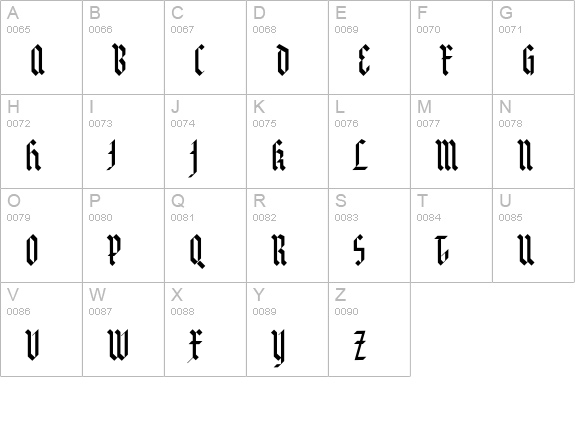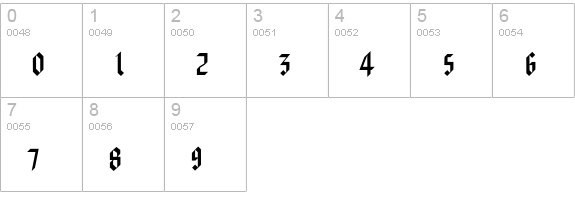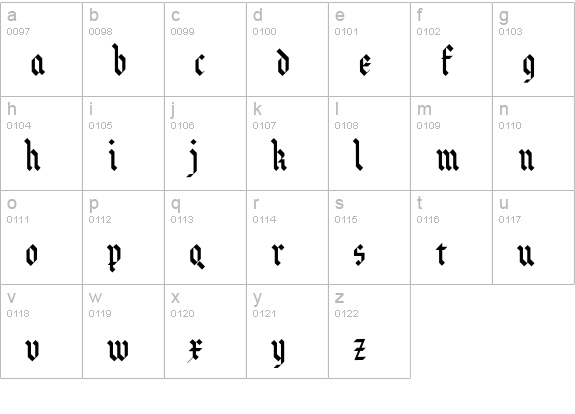
Kleinn Font Details
Kleinn font is a stunning typeface that exudes elegance and sophistication. With its clean lines and graceful curves, this font is perfect for adding a touch of class to any design project. Whether you're creating a logo, designing a website, or crafting a beautiful invitation, Kleinn font will surely make a lasting impression. What sets Kleinn font apart is not just its impeccable design, but also the fact that it is freely available for download. That's right, you can enhance your creative endeavors without spending a dime. Thanks to FontsMarket.com, this incredible font can be yours with just a few clicks. Downloading Kleinn font is as easy as it gets. Simply head over to FontsMarket.com and find the Kleinn font page. From there, you can easily access the download link and add this remarkable typeface to your collection. So why wait? Embrace the beauty of Kleinn font and let your creativity soar to new heights. Whether you're a professional designer or someone who simply appreciates the power of typography, Kleinn font is a must-have in your toolbox. Its versatility allows it to be used in a variety of design projects, making it a true gem for any creative endeavor. So don't miss out on the opportunity to add Kleinn font to your font library. Visit FontsMarket.com today and enjoy the freedom of using this exceptional typeface in all your design projects.